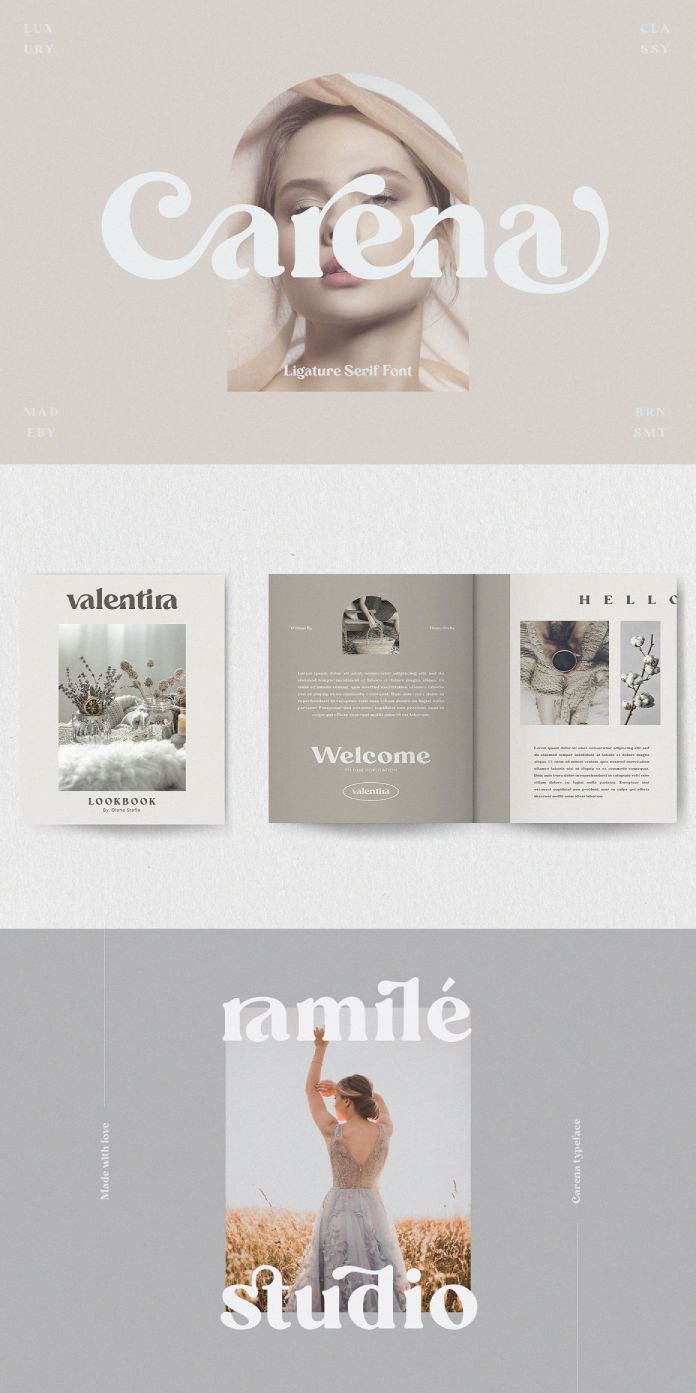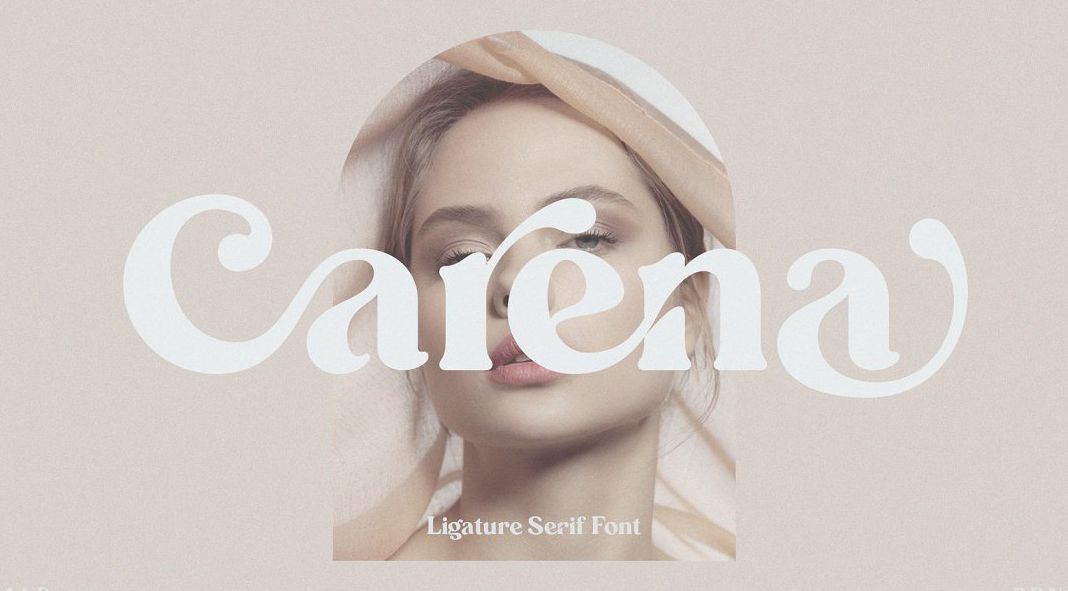
Check out Carena, a ligature serif typeface for elegant designs.
Carena is a new serif font that is elegant and classy at the same time. It has a modern yet nostalgic feel to it and is perfect for logos, magazines, and social media. Carena comes with plenty of ligatures. If you need a touch of elegance, style, class, and modernity in your designs, this font is perfect for you! It’s sure to make any project stand out. With its elegant design, you can create amazing works designs that will capture the attention of your audience. Try it today! You won’t be disappointed!